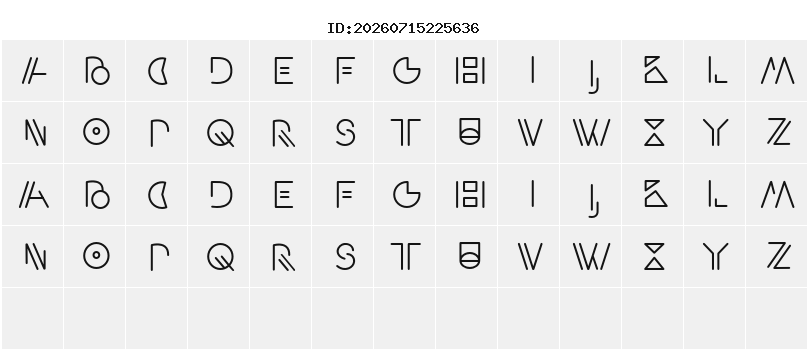
Artypa Preview
• Font Name: Artypa
• Designer: Philip Trautmann
About Artypa.otf
Artypa.otf is a modern, elegant sans-serif font designed for ultimate readability and visual harmony. Perfect for branding, headlines, web design, and print materials.